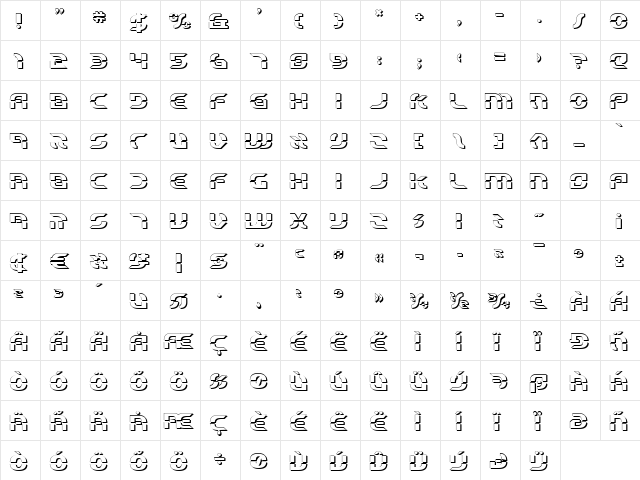
Starfighter Beta 3D 3D
| Style | 3D |
Design Context for Starfighter Beta 3D Typeface
Starfighter Beta 3D is a composed and adaptable typeface that performs quietly and consistently across a wide range of design contexts.